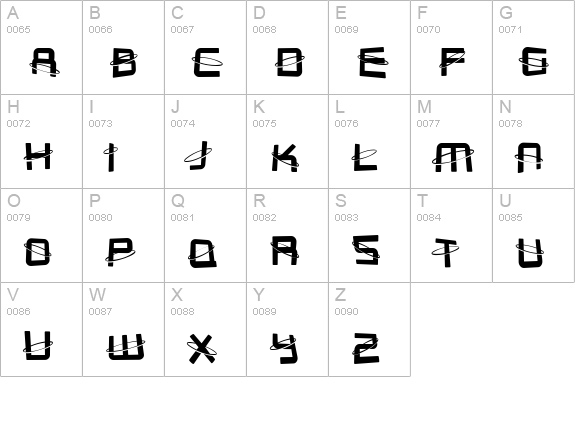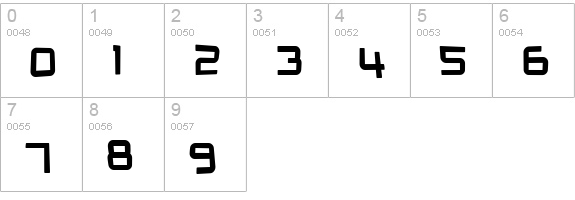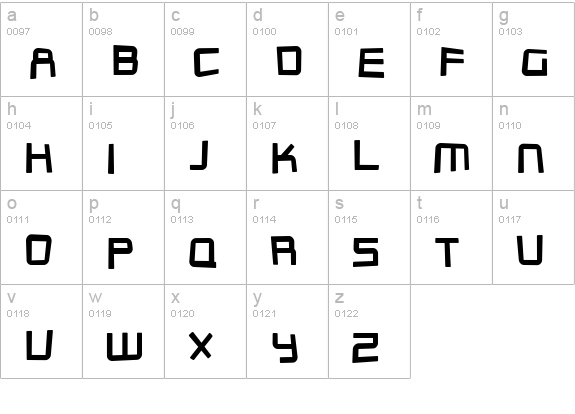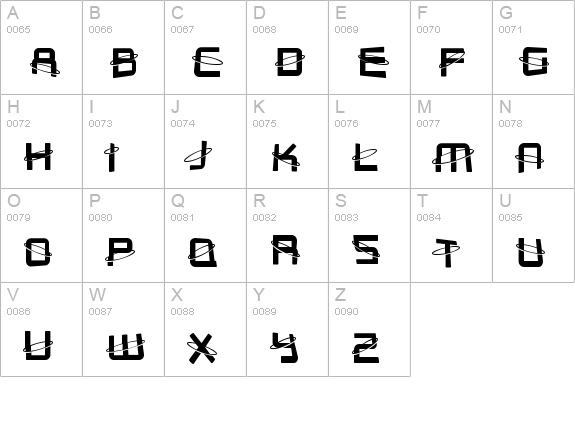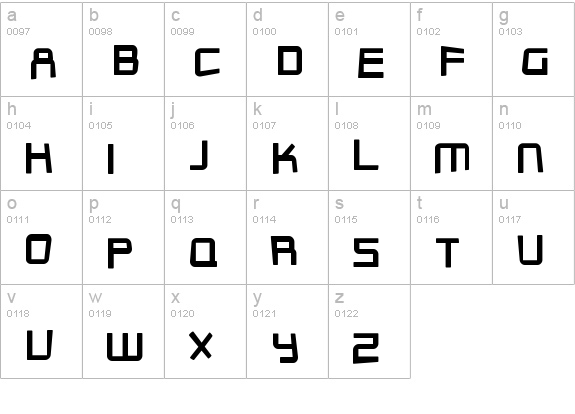
SF Outer Limits DistUpright Font Details
SF Outer Limits DistUpright is a captivating and enigmatic font that pushes the boundaries of traditional design. With its futuristic and otherworldly appearance, this font is perfect for projects that require a touch of the unknown. The sharp, angular lines create a sense of movement and energy, making it ideal for science fiction and technology-related designs. This font effortlessly combines elements of the past and the future, resulting in a truly unique and mesmerizing typeface. The carefully crafted distortions and irregularities in each letter give it a distinct and edgy look, setting it apart from conventional fonts. It is as if the letters themselves have escaped the confines of the page, ready to transport you to new dimensions. SF Outer Limits DistUpright is freely available to download at FontsMarket.com, offering you the opportunity to unleash your creativity without any limitations. Whether you are working on a personal project or a professional endeavor, this font will elevate your designs to extraordinary heights. It is a font that encourages exploration and experimentation, allowing you to break free from the norm and venture into uncharted territories. With its versatile nature, SF Outer Limits DistUpright can be used in a variety of contexts. From book covers and posters to websites and logos, this font will captivate and intrigue viewers, leaving a lasting impression. Its bold and commanding presence demands attention, making it a powerful tool for communicating your message in a visually striking way. Step into the unknown and unleash your imagination with SF Outer Limits DistUpright. Download this captivating font for free at FontsMarket.com and let it guide you on a journey of limitless possibilities. Embrace the freedom to create and watch as your designs transcend the boundaries of the ordinary.